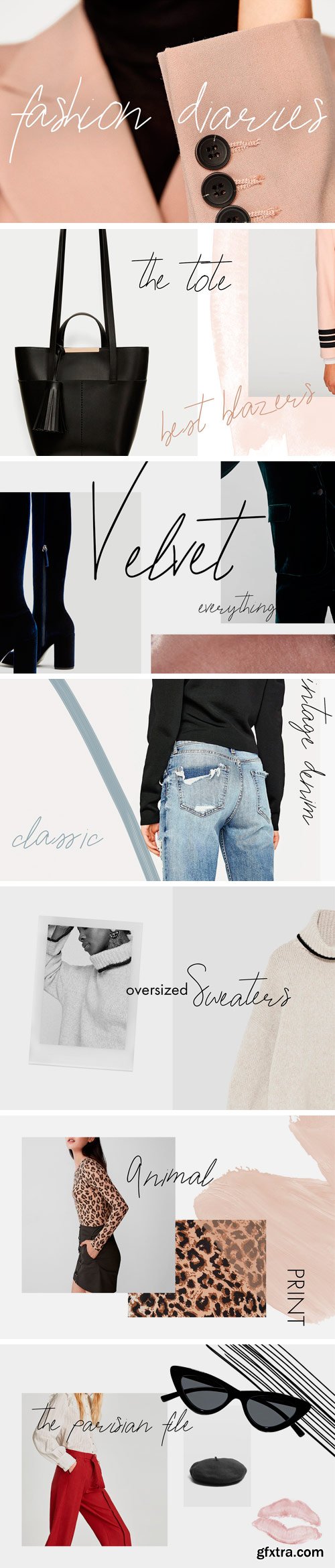
CM - Fashion Diaries Script Font 2173293
A carefree handwritten script font with a feminine-edgy aesthetic. Fashion Diaries combines chic script with modern messy flair. It pairs well with fashion industry classics like Futura or Century Gothic. Use this font to spice up your blog posts, newsletters, instagram posts, etc.